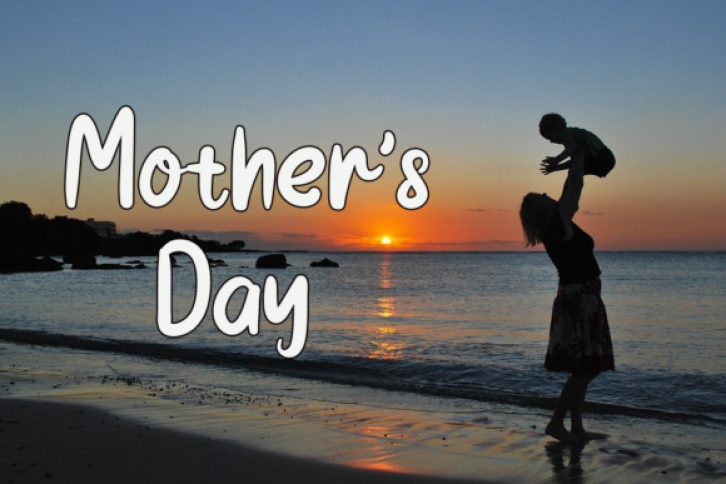
Mother’s Day is a simple, natural and adaptable script font. It can be used for various creations, formal and informal. Your imagination is the only limit.